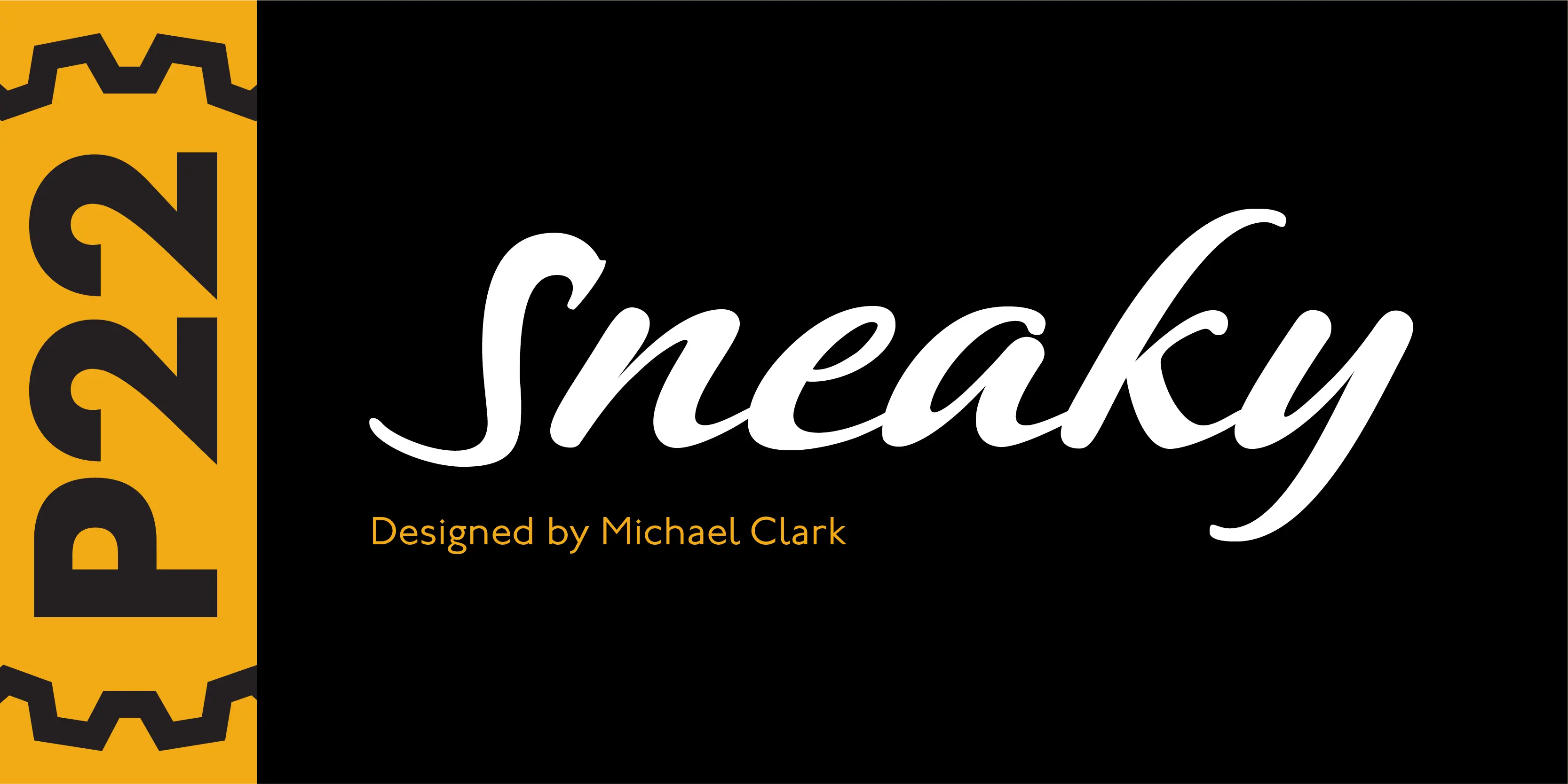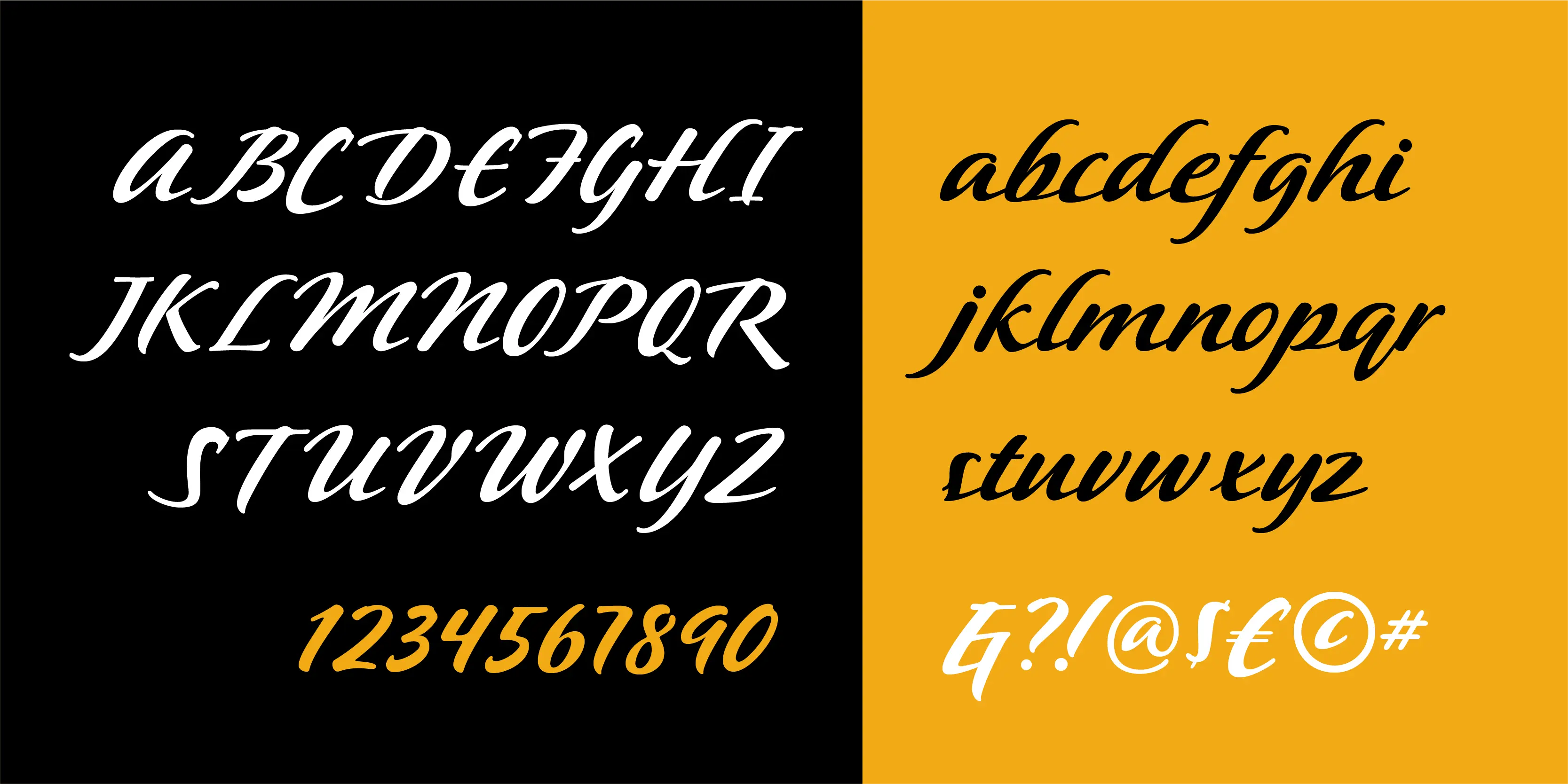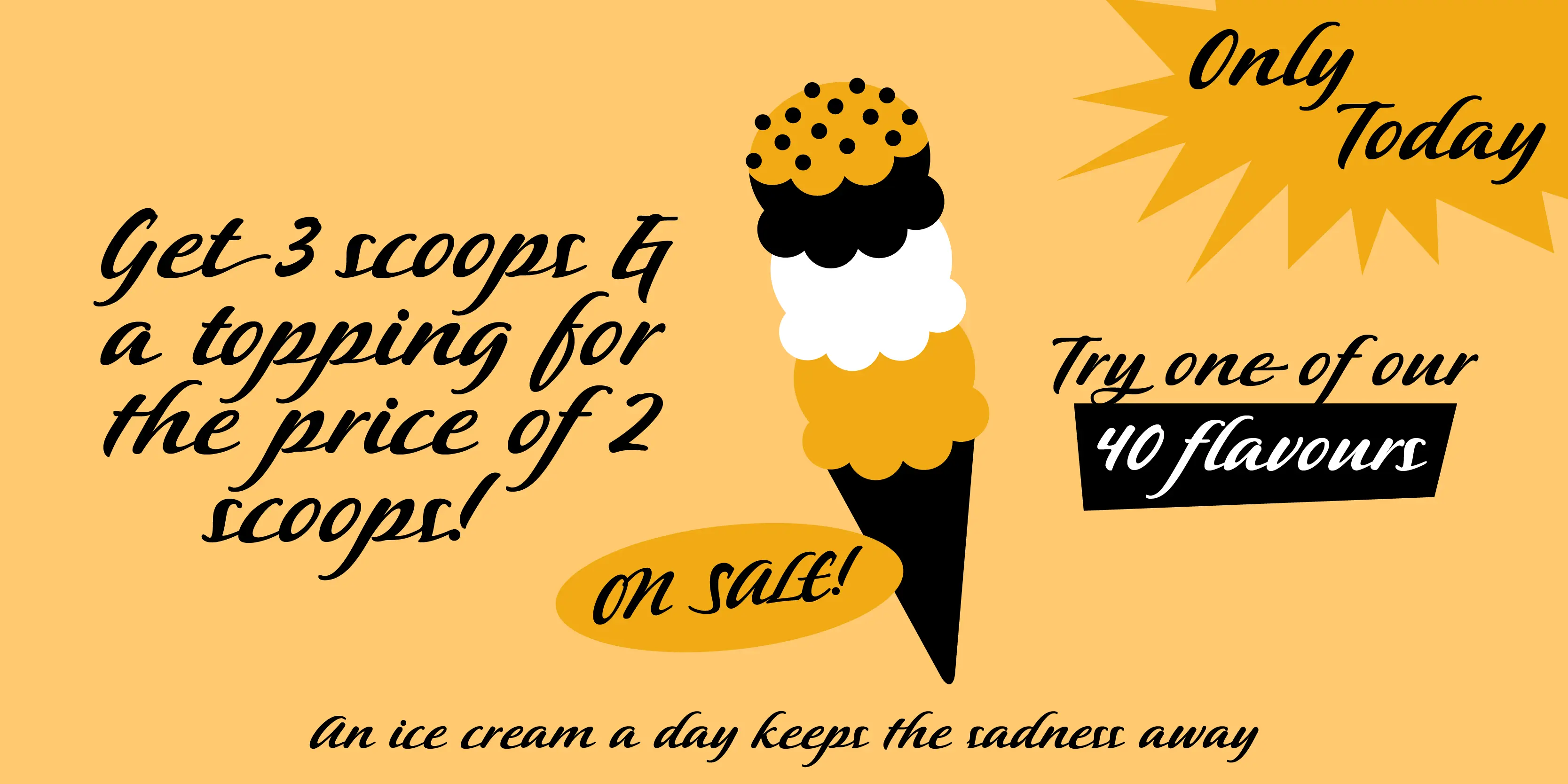
Sneaky Font
Sneaky
P22 Sneaky is the newest font by award winning type designer Michael Clark. Sneaky is a connecting-script and sibling of his popular “Pooper Black” type which shares a similar flow and casual elegance. It features shared details and relative size so that with careful design, the two can be mixed and matched. Sneaky Pro features over 500 glyphs with alternates and a Central European character set.
- Common Ligatures
- Contextual Swashes
- Slashed Zero
- Stylistic Alternates
- Stylistic Sets
- Swashes